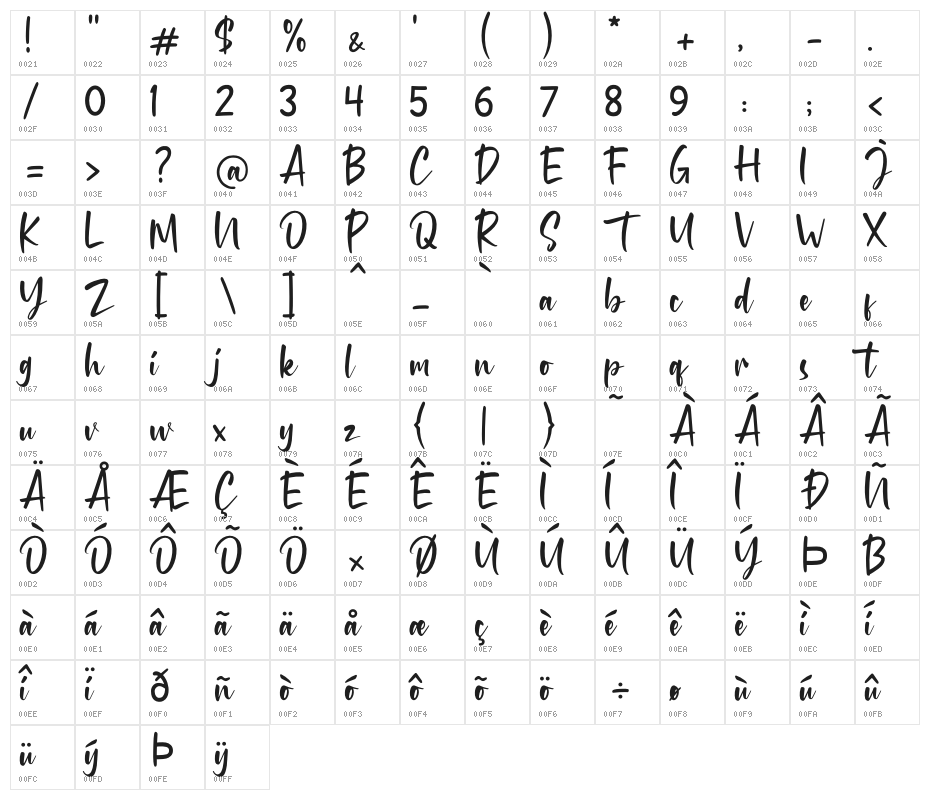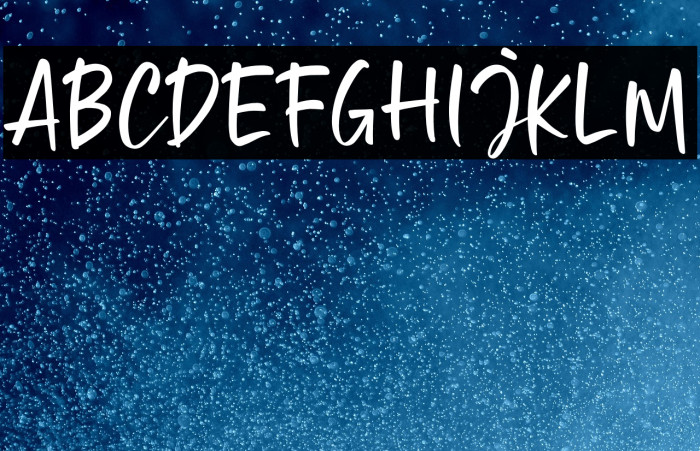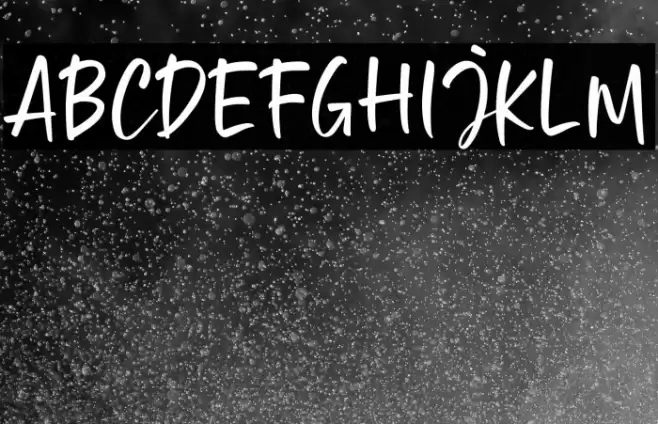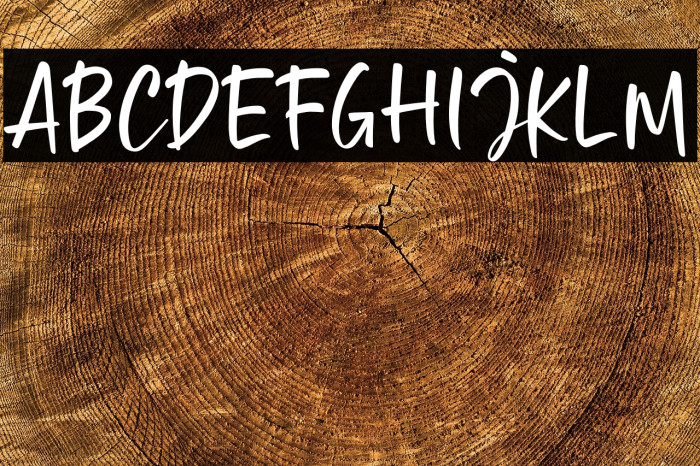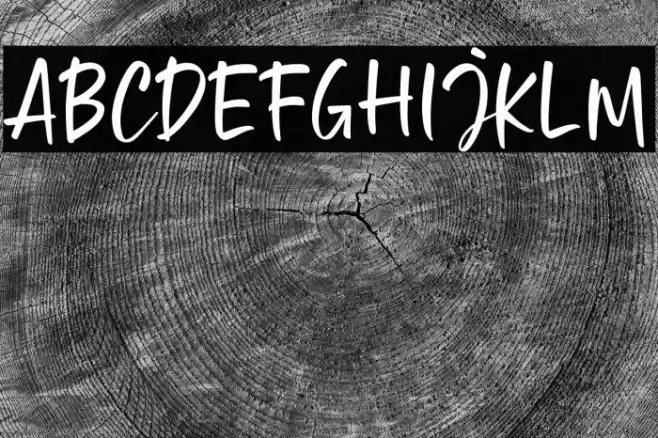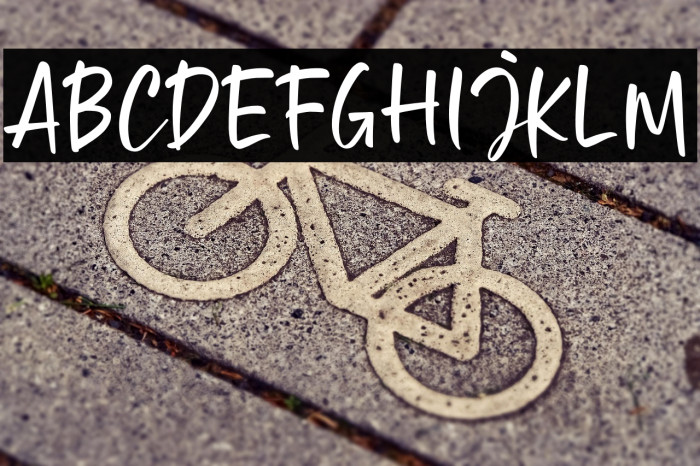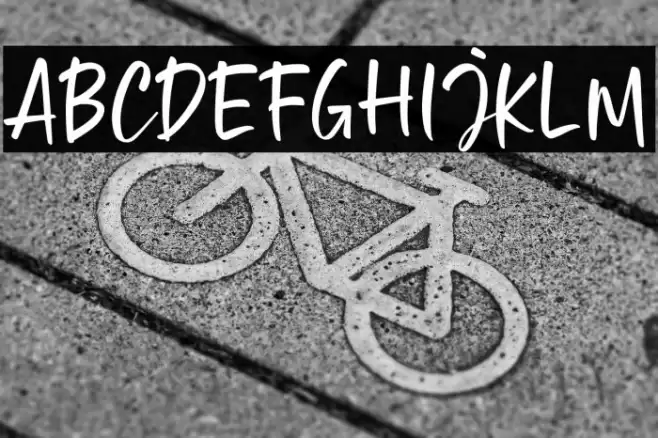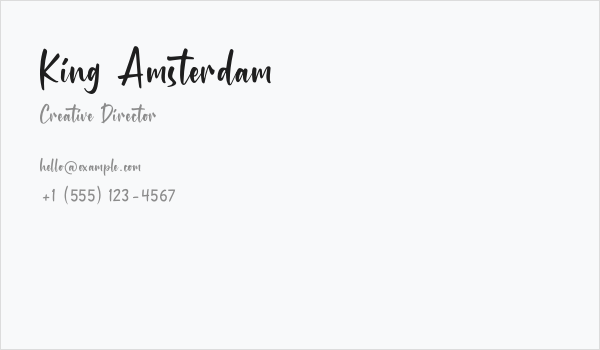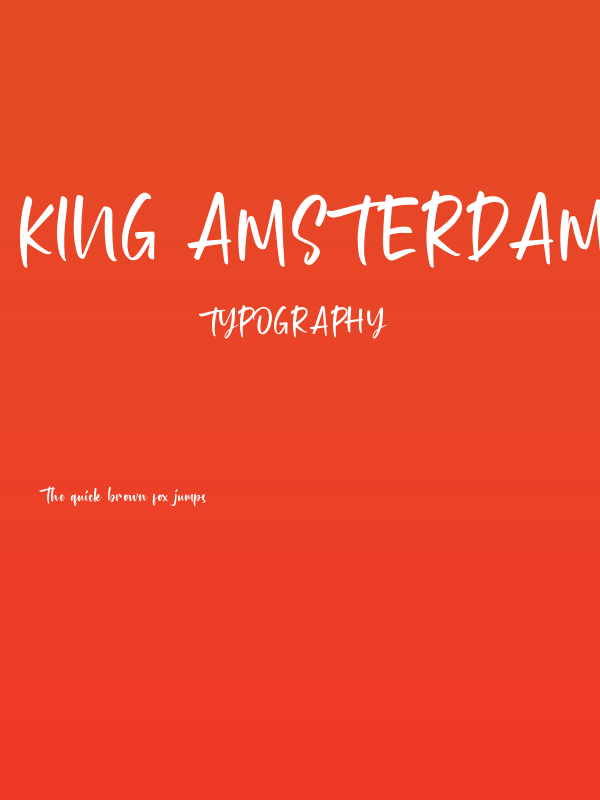
King Amsterdam Font
King Amsterdam Description
This font features a lively and expressive handwritten style, characterized by its fluid and dynamic strokes. The uppercase letters are bold and slightly irregular, giving a sense of spontaneity and creativity. The lowercase letters maintain a consistent flow, with some characters extending below the baseline, adding to the font's playful nature. The numerals are clear and legible, matching the overall style of the alphabet. Special characters are included, maintaining the same energetic and informal aesthetic. This font is ideal for projects that require a personal touch or a casual, friendly vibe.
| Proposed Projects | Ideal for greeting cards, invitations, personal branding, and creative projects that require a casual and friendly touch. |